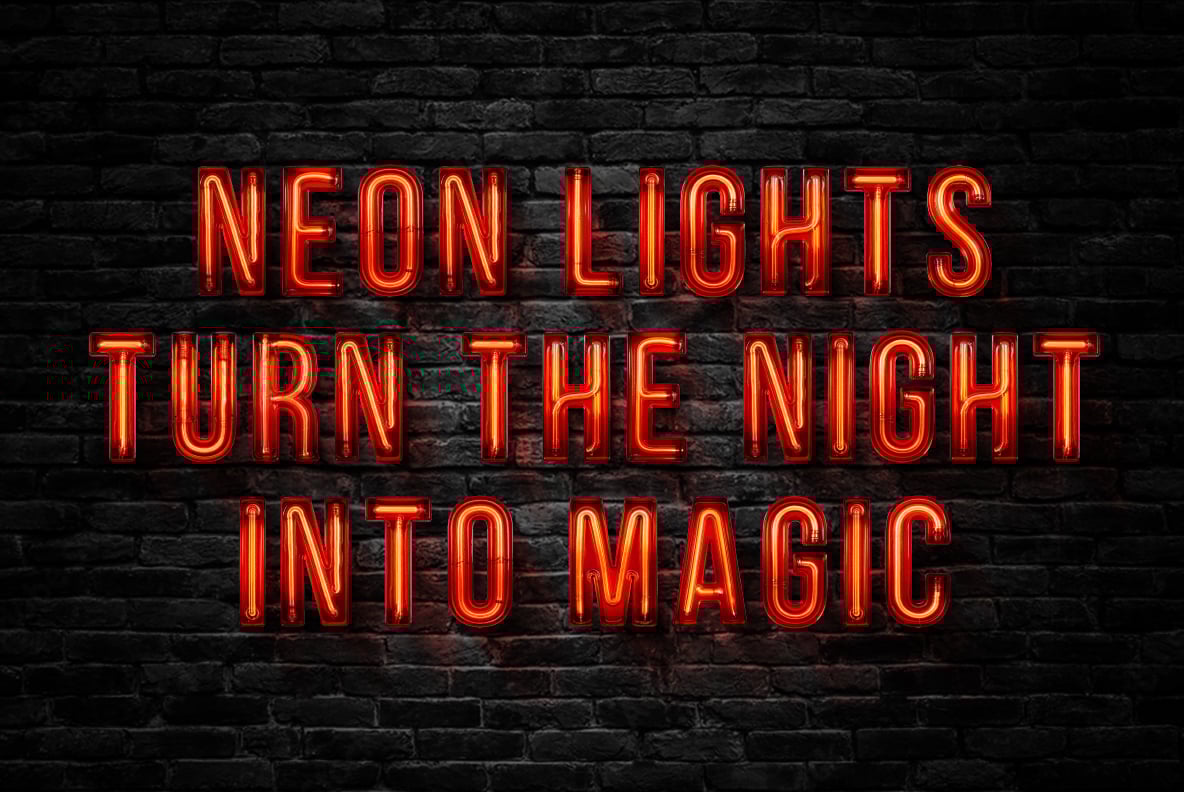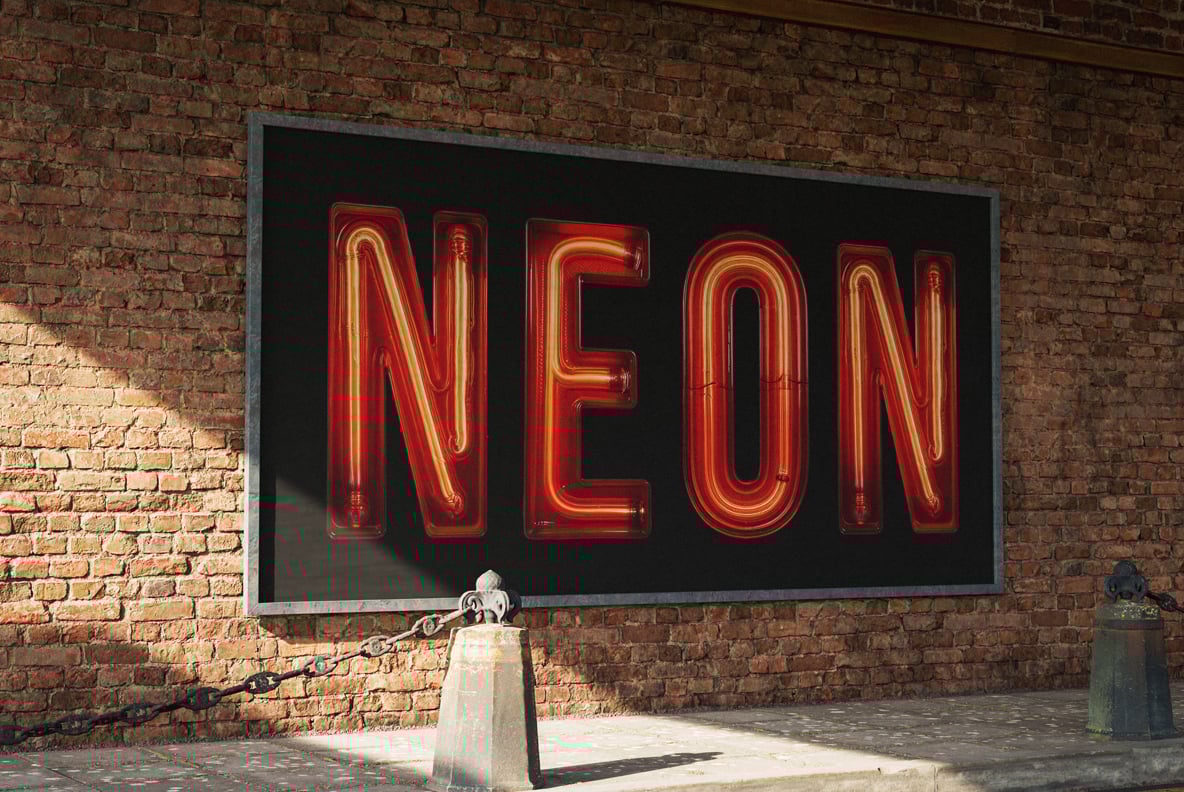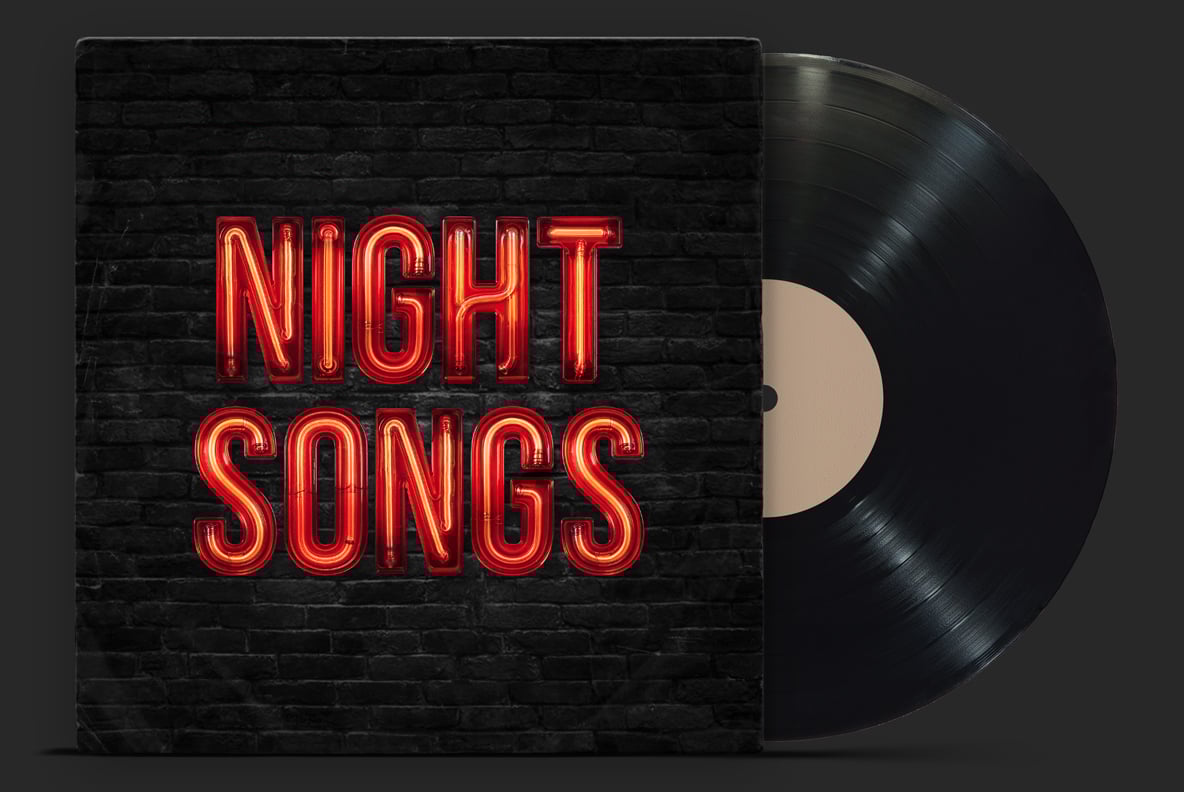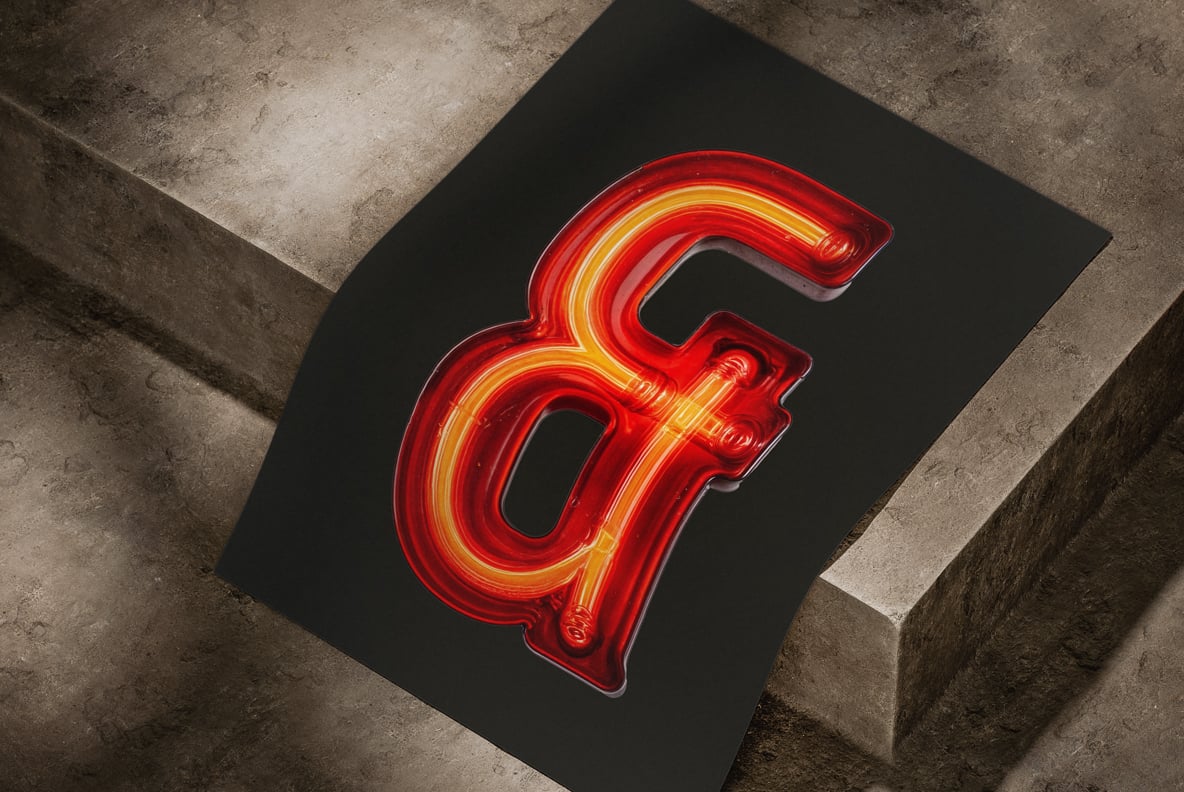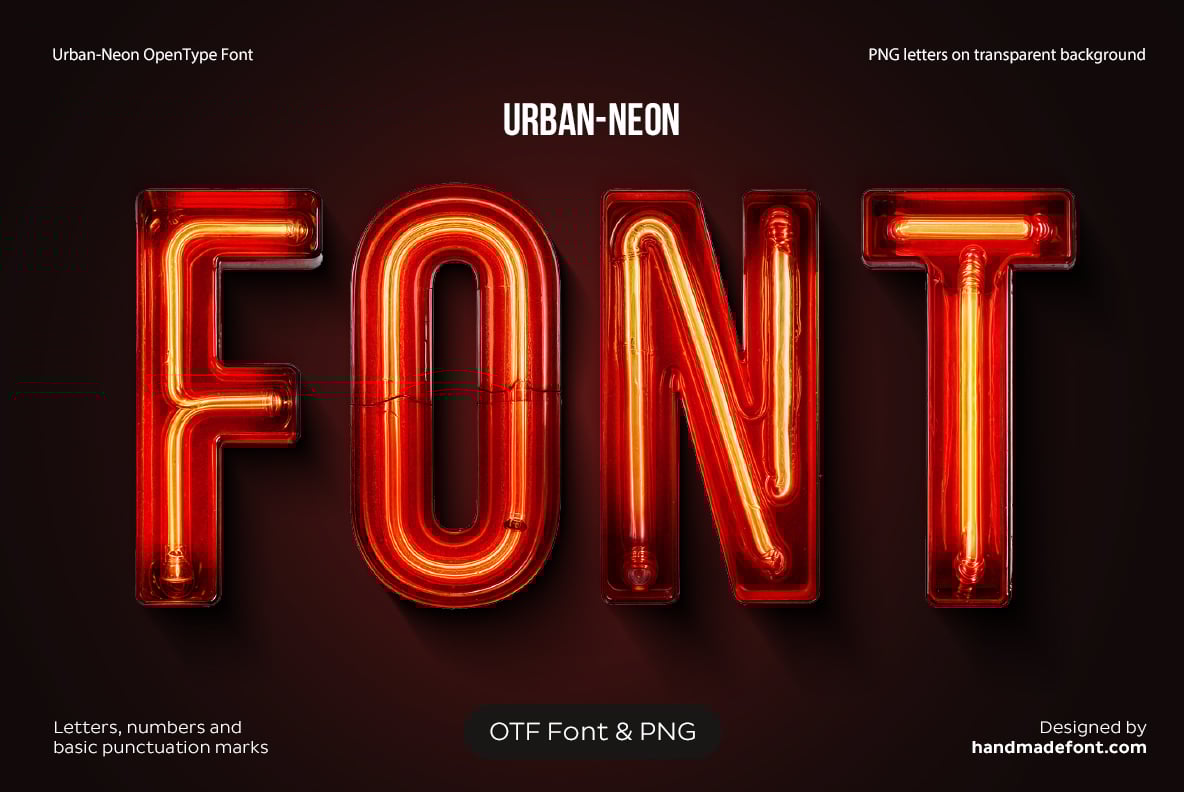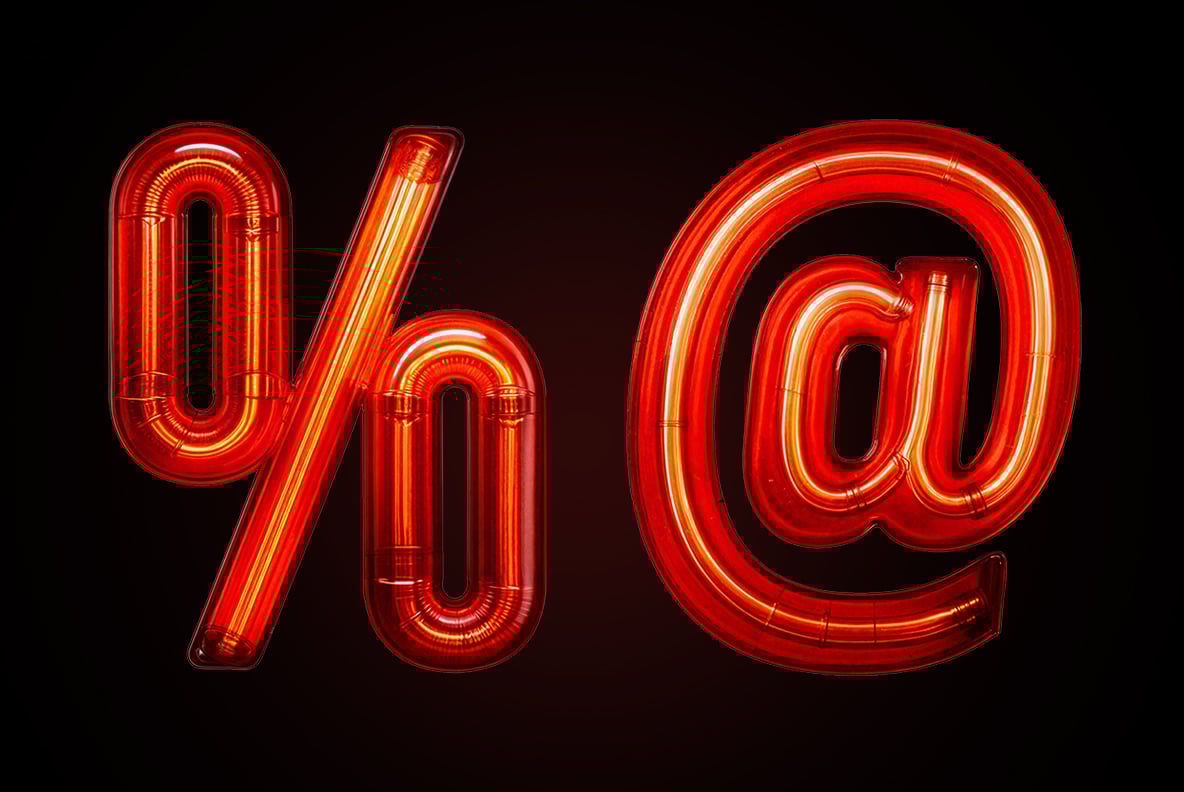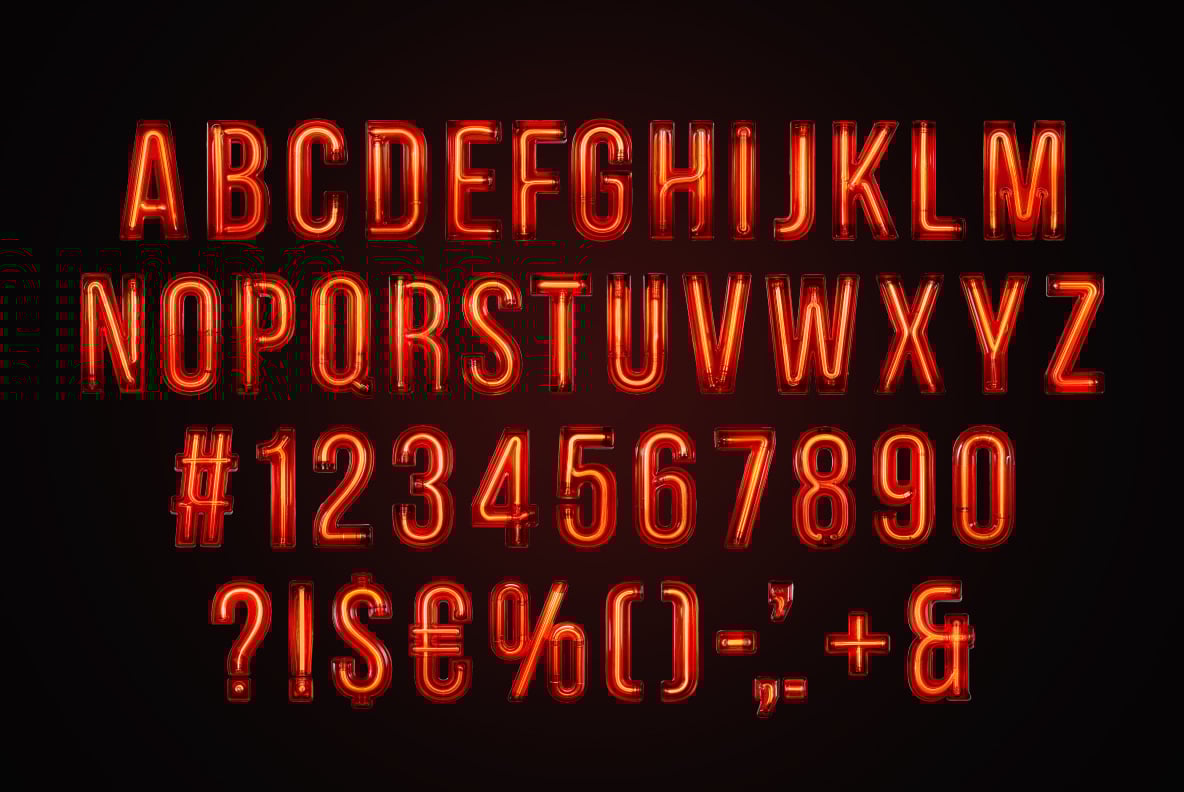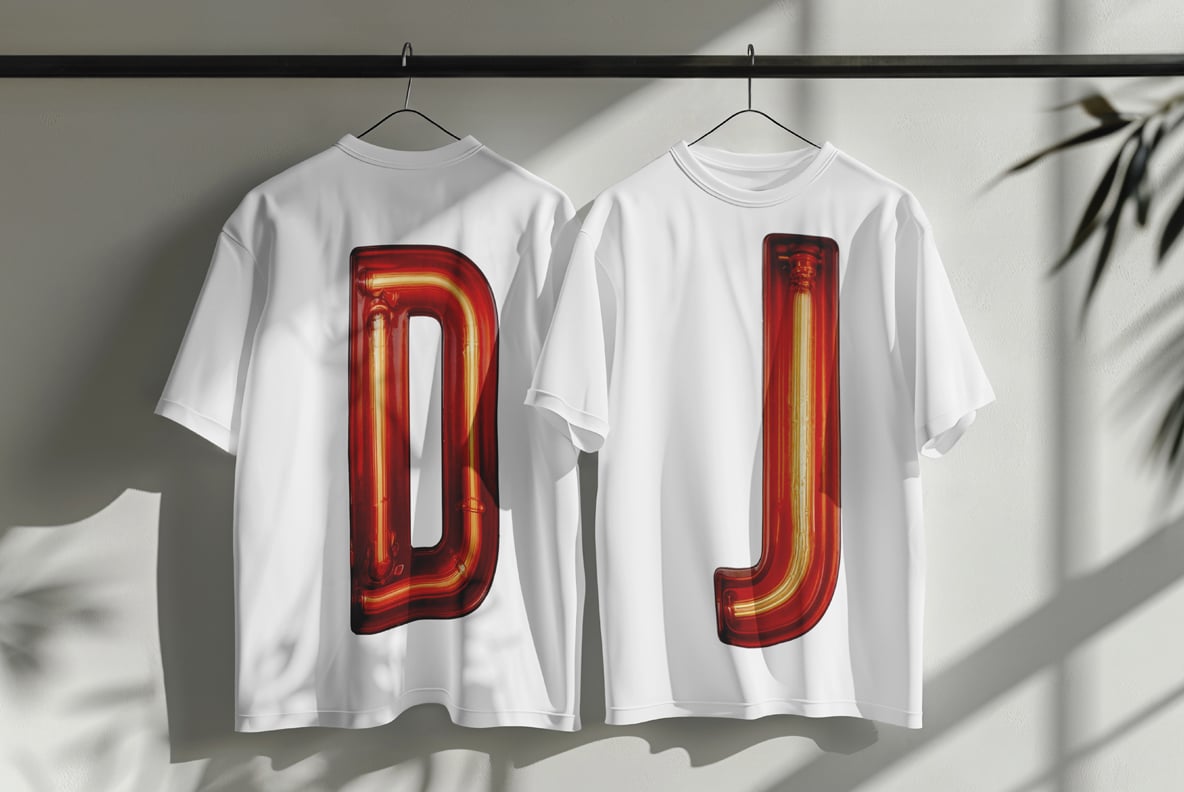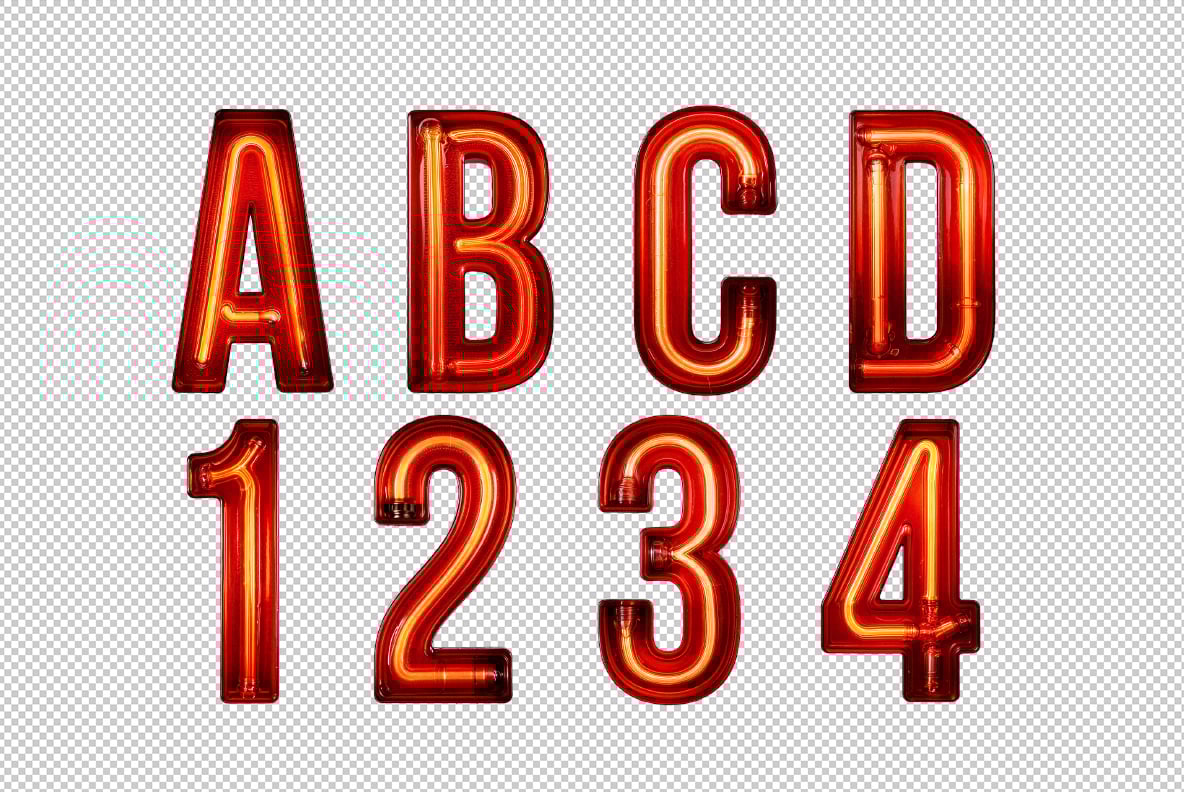
Urban Neon Font
Night just got a whole lot brighter with Urban Neon Font—a neon typography masterpiece that screams vintage diner vibes and late-night city lights! Each letter glows like a buzzing neon sign, with bold red interiors wrapped in electric yellow-orange tubing, radiating that perfect neon glow. It’s like your words just stepped out of a retro Hollywood marquee and started their own neon alphabet dance party. Whether you're crafting eye-catching neon artwork or giving your designs that unmistakable neon aesthetic, this neon-inspired font delivers pure illuminated magic. Light up your creativity—because regular fonts are just too... dim.